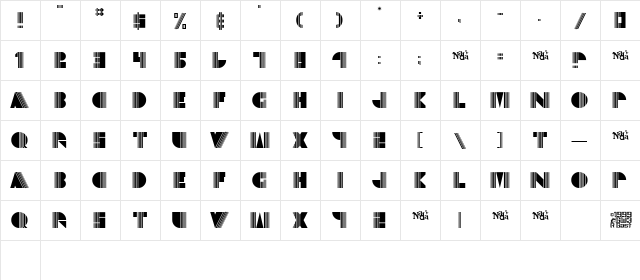
Echo Deco Regular
Design Context for Echo Deco Typeface
Echo Deco is a composed and adaptable typeface that performs quietly and consistently across a wide range of design contexts.